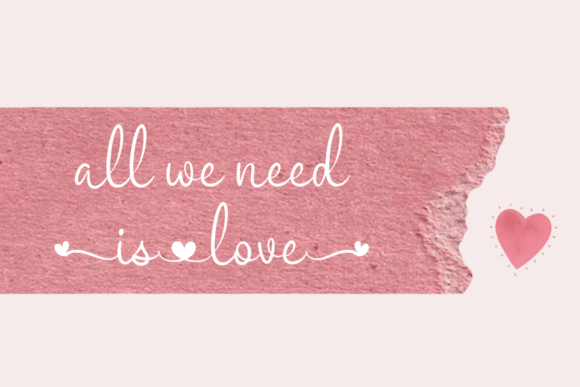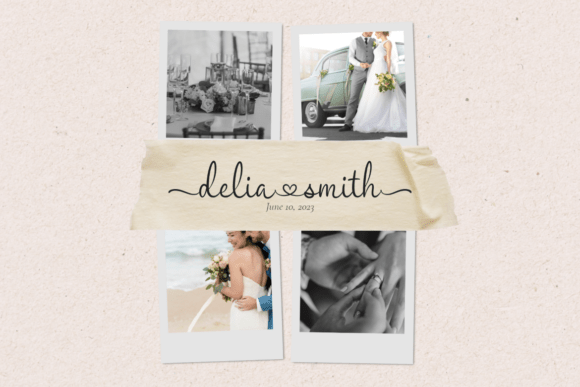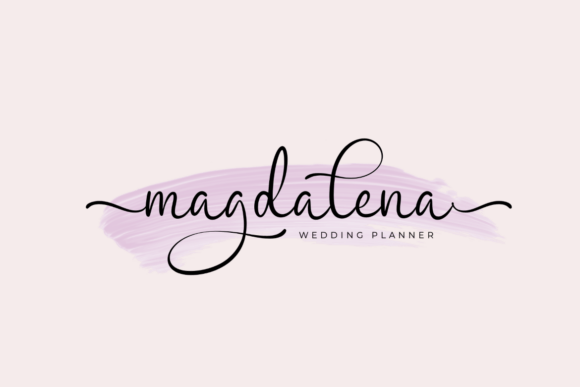
Love Letter Font
Love Letter is a charming handwritten script font that captures the essence of romance and sweet affection. With flowing strokes, whimsical heart details, and graceful swashes, this font is perfect for adding a touch of love to your creative projects.
Whether you’re designing wedding invitations, Valentine’s cards, branding for a romantic product, or heartfelt quotes, Love Letter brings warmth and elegance to every word. Its playful yet elegant curves and decorative heart connectors make it irresistibly cute and stylish.
And finally, all swash features can be easily accessed using only the keyboard.